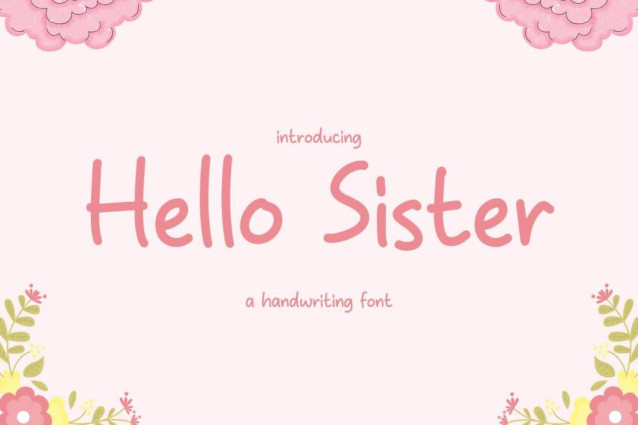
Hello Sister Handwriting Font
Hello Sister Handwriting Font is a simple and friendly handwritten font. Its natural and unique style makes it incredibly fitting to a large pool of designs. The only limit is your imagination!